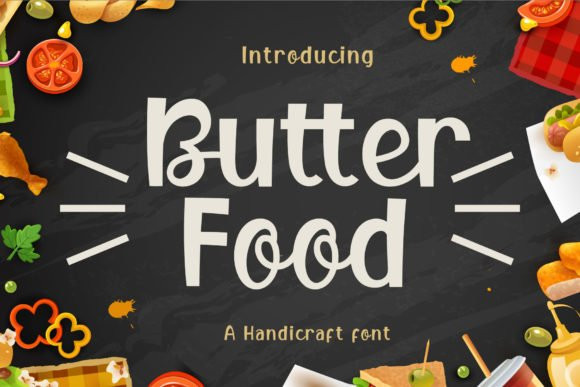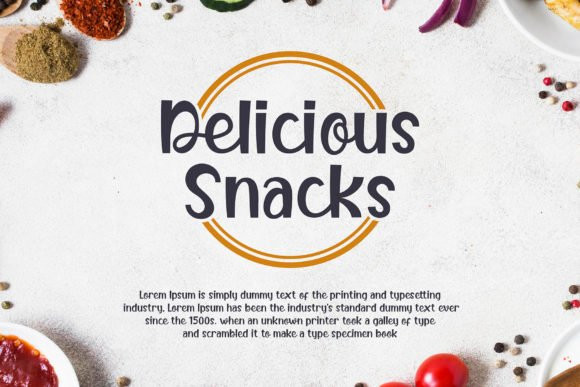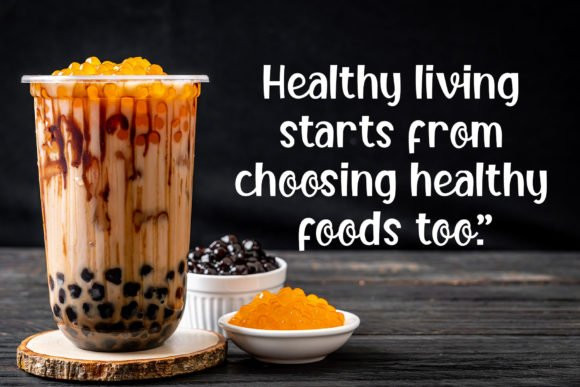
Butter Food Font
Butter Food is a cute and quirky display font. It will add an incredibly joyful touch to your designs. Add this beautiful display font to each of your creative ideas and notice how it makes them stand out!